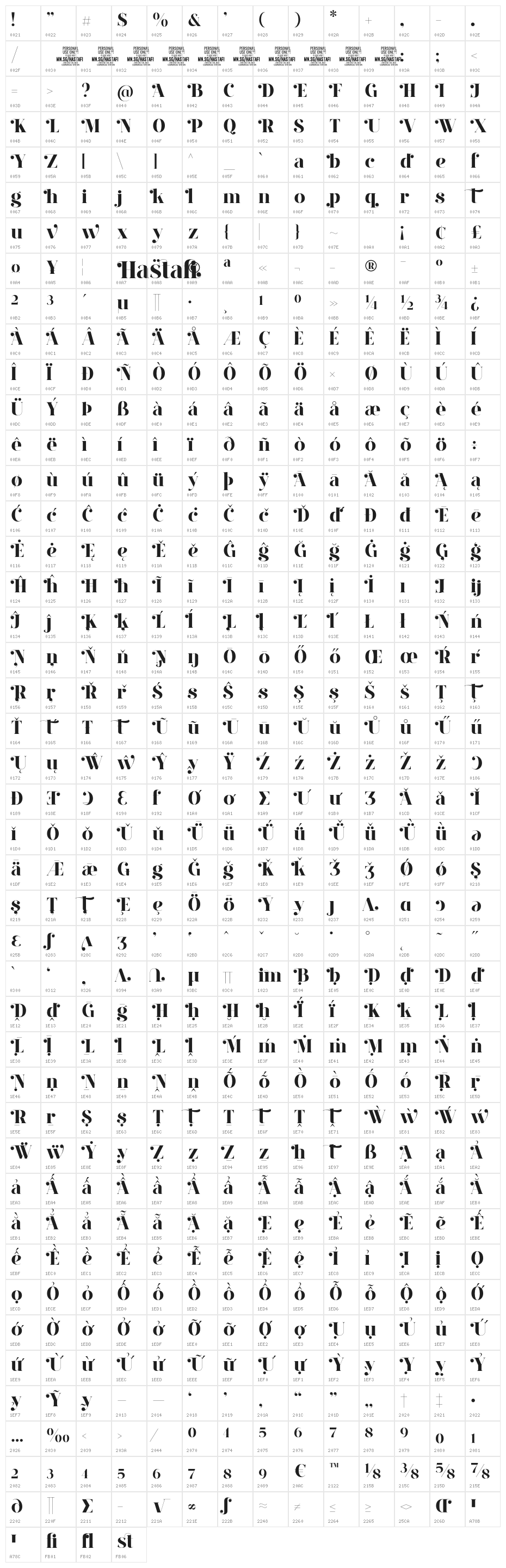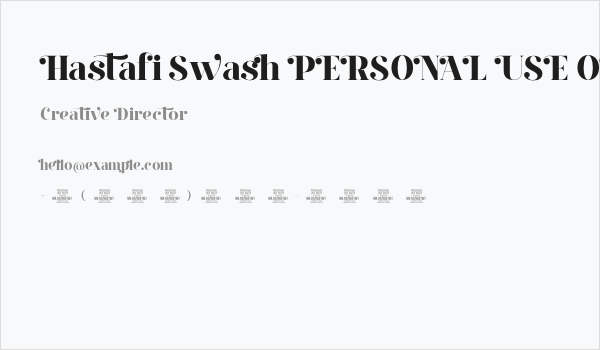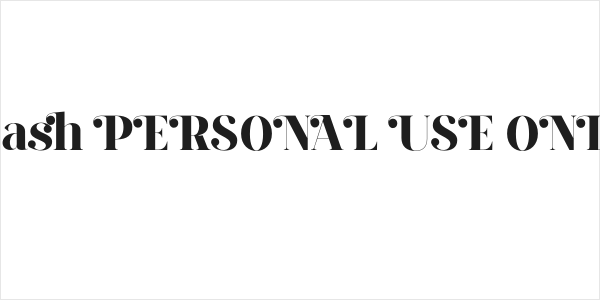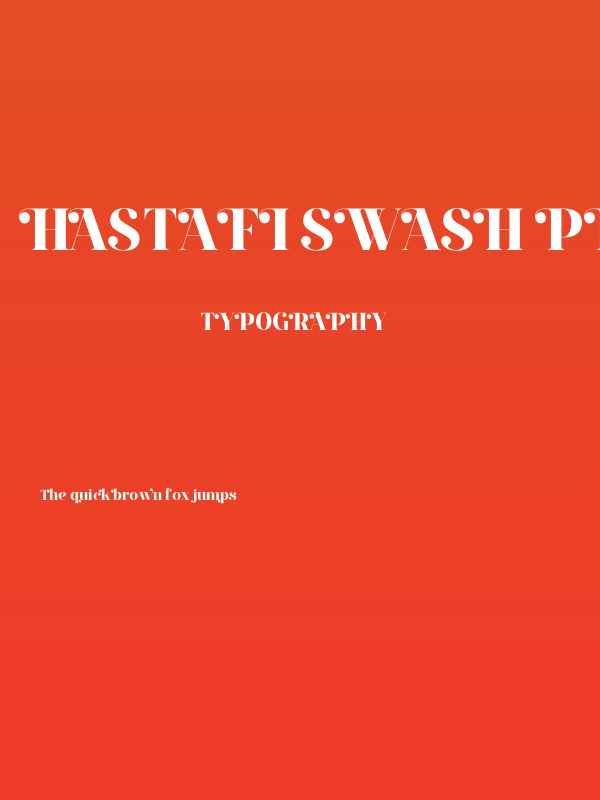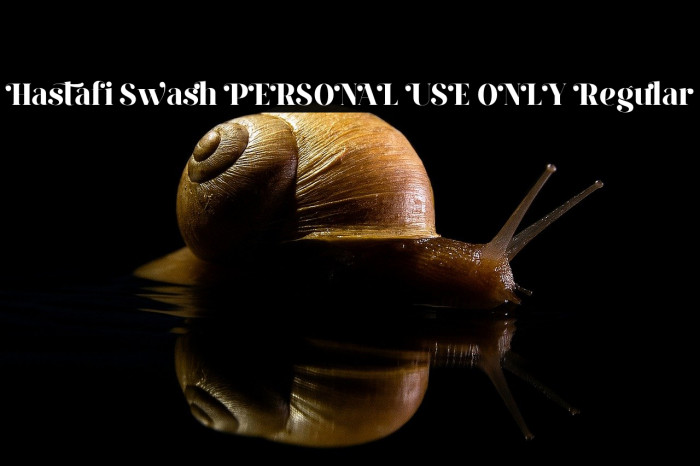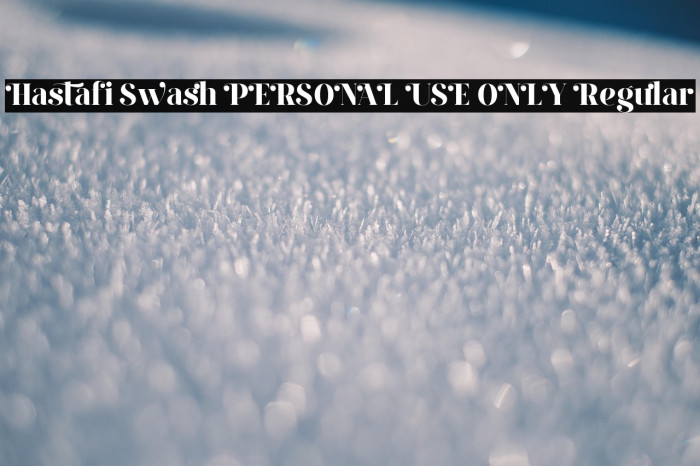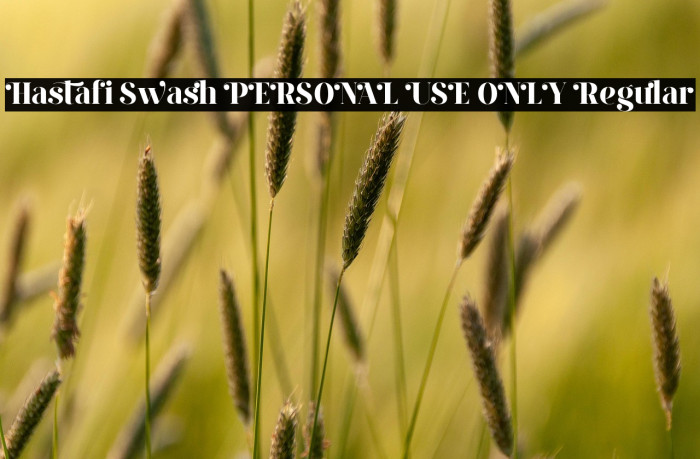
Hastafi Swash PERSONAL USE ONLY Regular Font
Hastafi Swash PERSONAL USE ONLY Regular Description
This font features a bold and decorative style with a unique swash design that adds flair to each character. The uppercase letters are particularly striking, with exaggerated curves and elegant serifs that create a sense of movement and sophistication. The lowercase letters maintain this decorative theme, offering a cohesive look across the alphabet. The numbers and special characters are equally ornate, making this font suitable for projects that require a touch of elegance and creativity. The overall design is both eye-catching and versatile, perfect for making a statement.